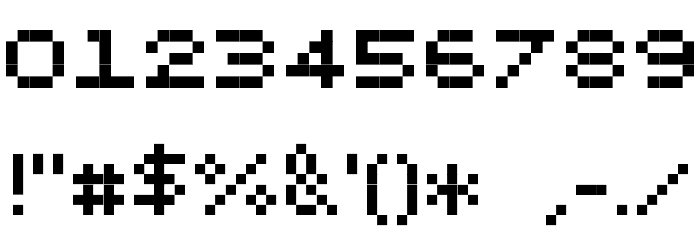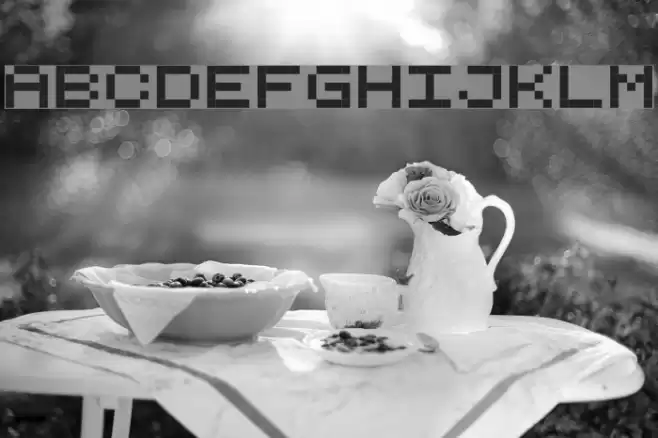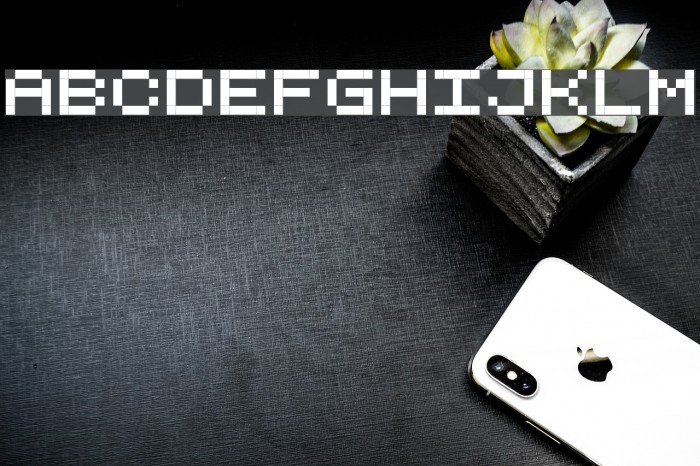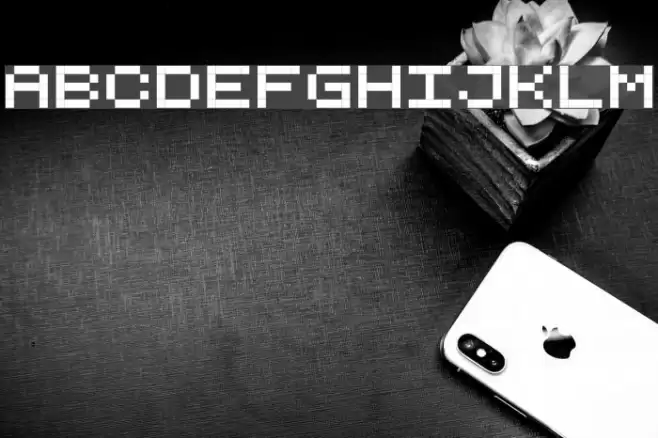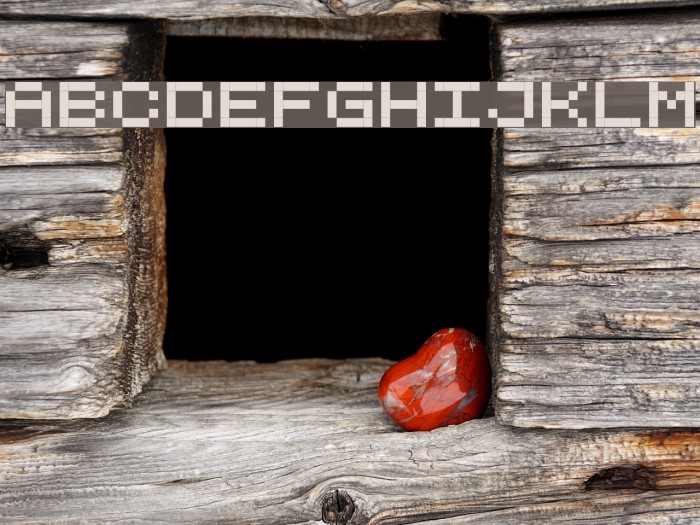
Pixelicious Font
Pixelicious Description
This font embodies a classic pixelated style reminiscent of early digital displays and video games. Each character is constructed with a grid-like precision, giving it a distinctly retro and digital aesthetic. The uniformity in the pixel size across all characters ensures a cohesive look, making it ideal for projects that aim to evoke nostalgia or a tech-inspired theme. The characters are bold and clear, ensuring readability even at smaller sizes. This font is perfect for creating a vintage digital feel, suitable for both text and decorative purposes.
A pixelated, retro-style font ideal for digital-themed projects from Pixel fonts.
- Proposed Projects: Video game design, retro-themed posters, digital art projects, and tech-inspired branding.
- Overall Style: Vintage
- Use Case: Headlines, Logos, Digital displays